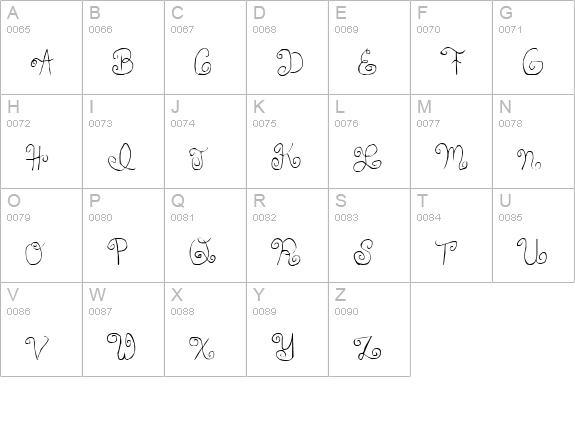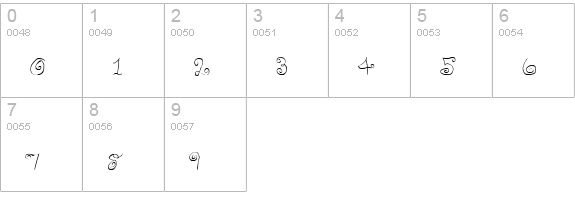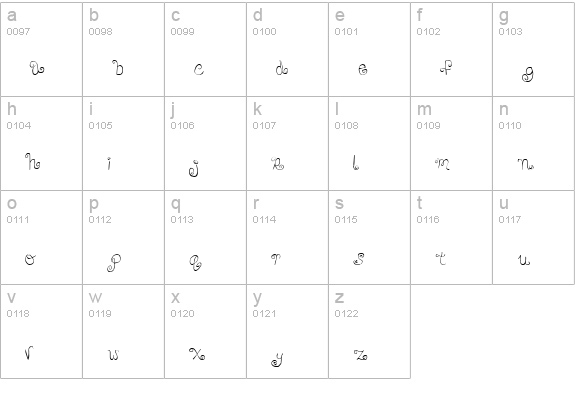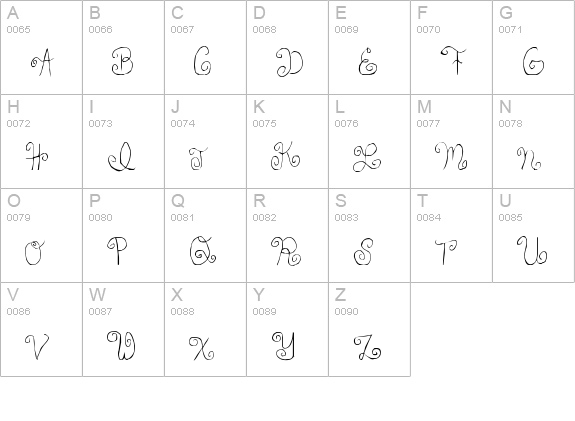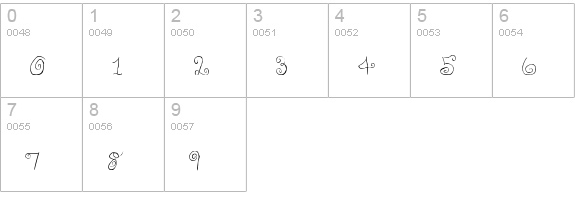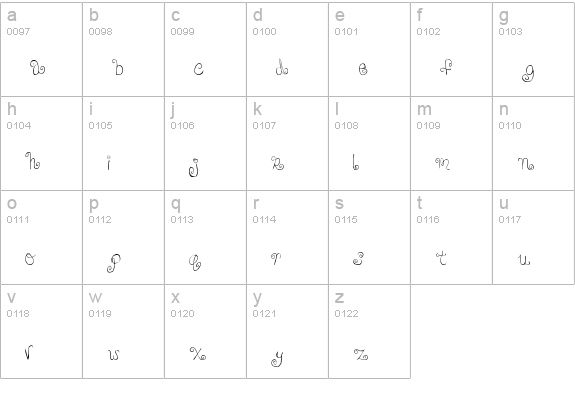
Skirt Girl Font Details
Introducing Skirt Girl, a beautifully unique and versatile font that captures the essence of femininity and elegance. With its delicate curves and graceful strokes, this font adds a touch of sophistication to any design project. Skirt Girl is a free font that is widely loved for its versatility and charm. Whether you're working on a wedding invitation, a fashion magazine layout, or a logo design for a chic boutique, Skirt Girl is sure to make a lasting impression. This font offers a wide range of characters, including both uppercase and lowercase letters, numbers, punctuation marks, and special symbols. Its smooth and flowing lines create a sense of movement and grace, making it perfect for projects that require a touch of femininity. Skirt Girl font is freely available to download at FontsMarket.com, a trusted source for high-quality fonts. By offering this font for free, we aim to empower designers and creatives to express their unique visions without any limitations. With Skirt Girl, you can effortlessly add a touch of sophistication and elegance to your designs. Its timeless beauty and versatility make it a must-have for any designer's font collection. So why wait? Download Skirt Girl today and let your creativity soar.